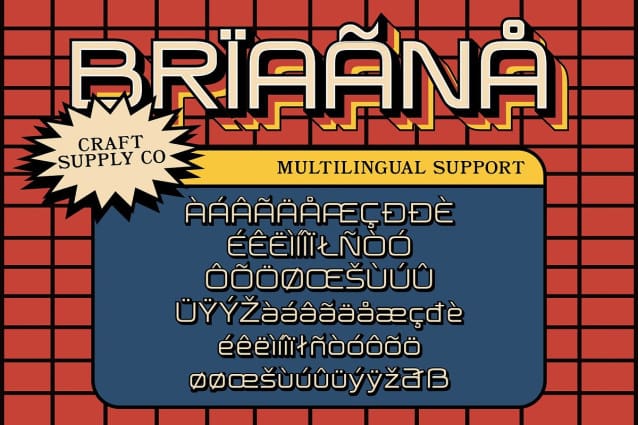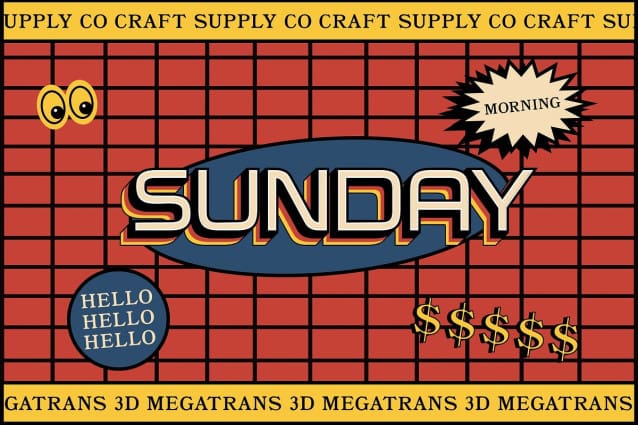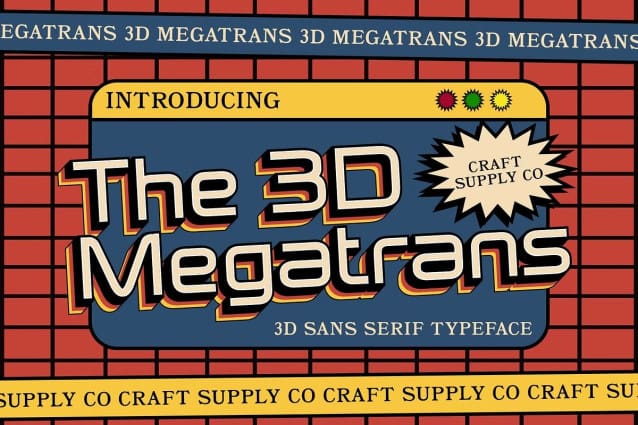
Megatrans 3D Font
Megatrans 3D Font: Futuristic Sans Serif.  Space-Inspired Elegance Megatrans 3D draws inspiration from cutting-edge space technology, reflecting a futuristic aesthetic in its sleek sans serif design.
Dynamic 3D Effects With striking 3D effects, This font transcends traditional typography, adding depth and dimensionality to each character for a truly captivating visual experience.
Versatile Modernity This font’s modernity makes it adaptable to various design needs, from digital interfaces to print media. Its clean lines and futuristic appeal ensure versatility in application.
Popularity in Design This font popularity lies in its ability to command attention and evoke curiosity. Its blend of modernity and 3D effects sets it apart as a sought-after choice for contemporary design projects.
Bridging Space and Design This font bridges the realms of space and design, offering a futuristic sans serif font with dynamic 3D effects. Whether used in digital or print contexts, its sleek aesthetic and captivating visuals elevate any project to new dimensions.